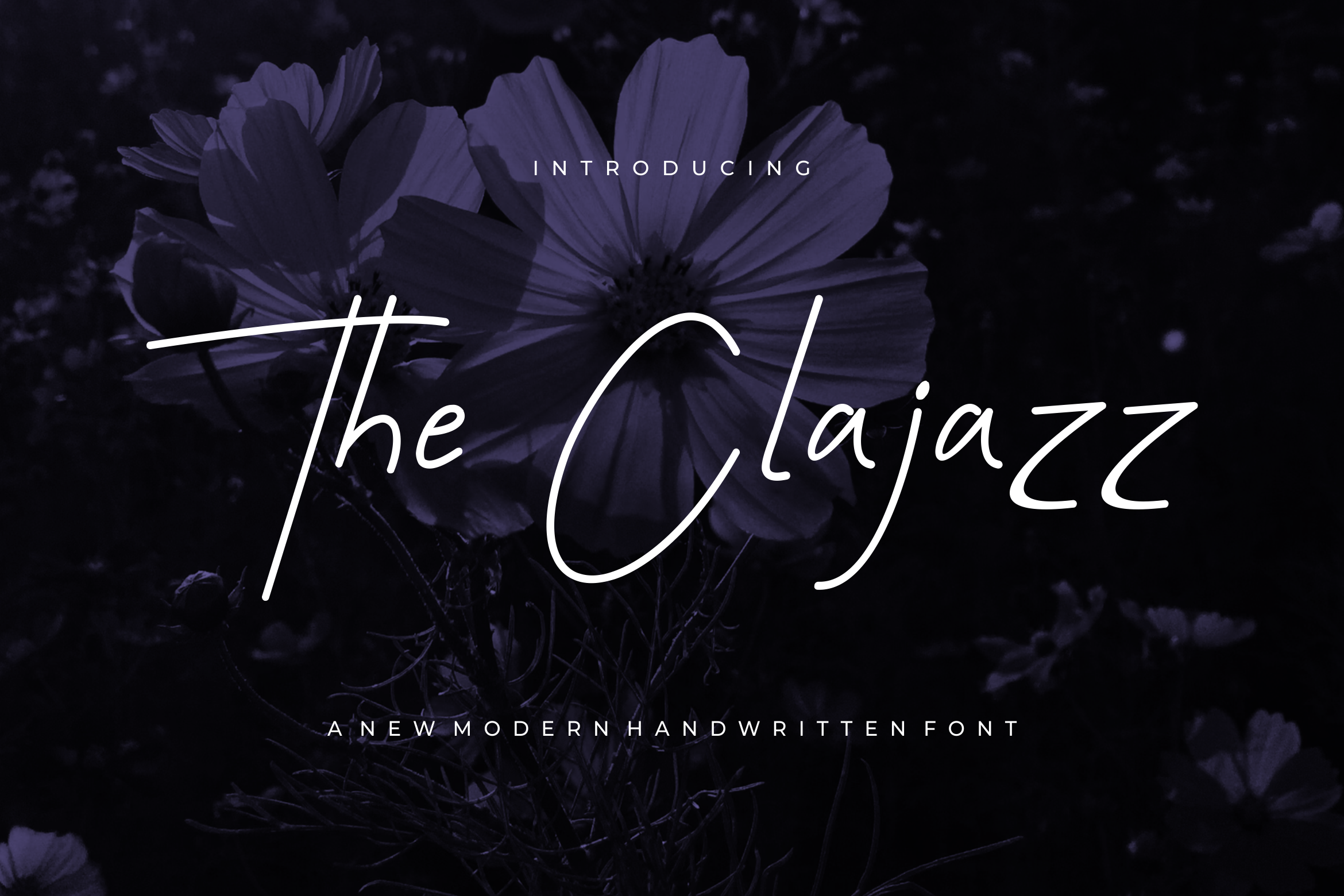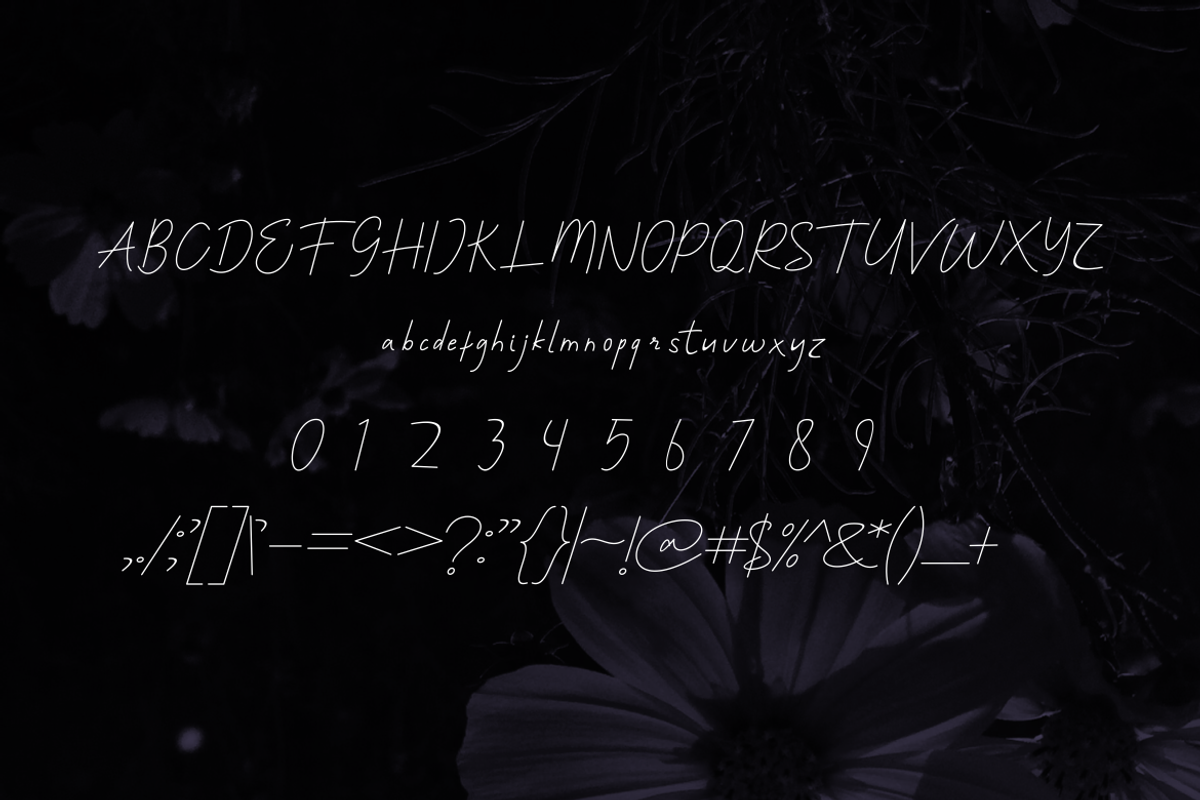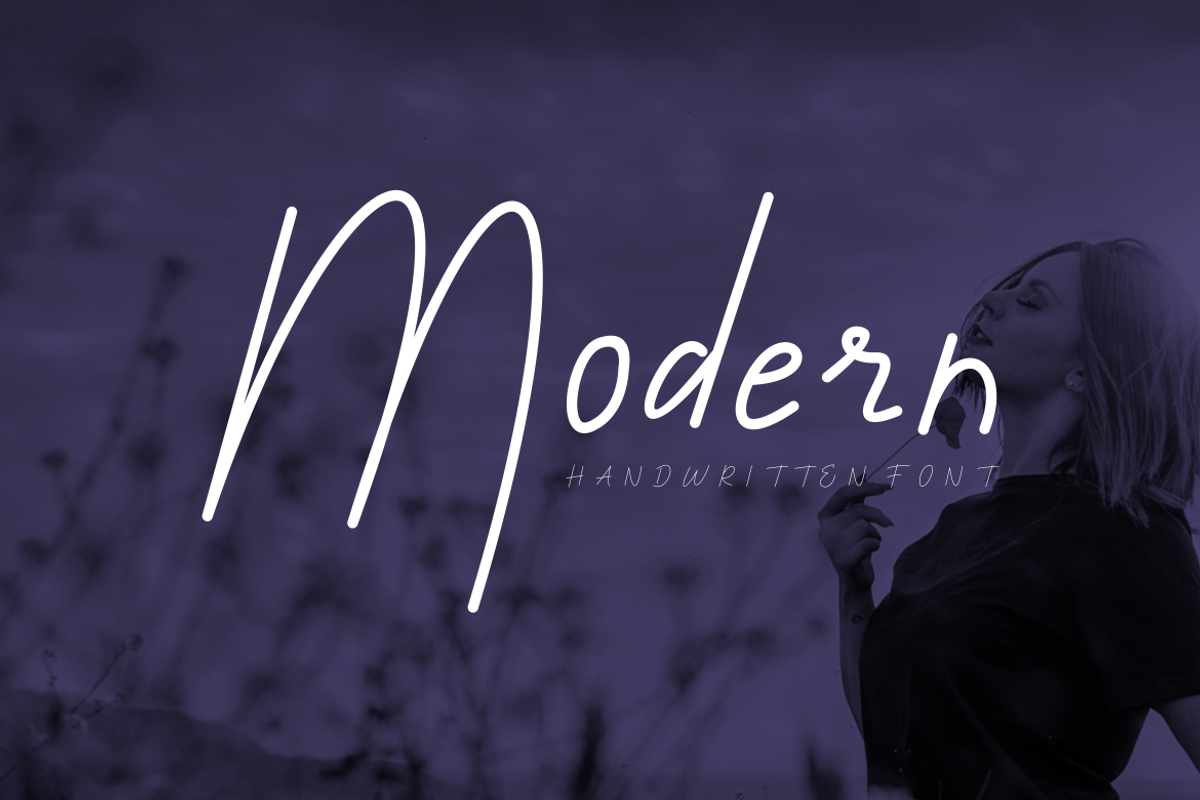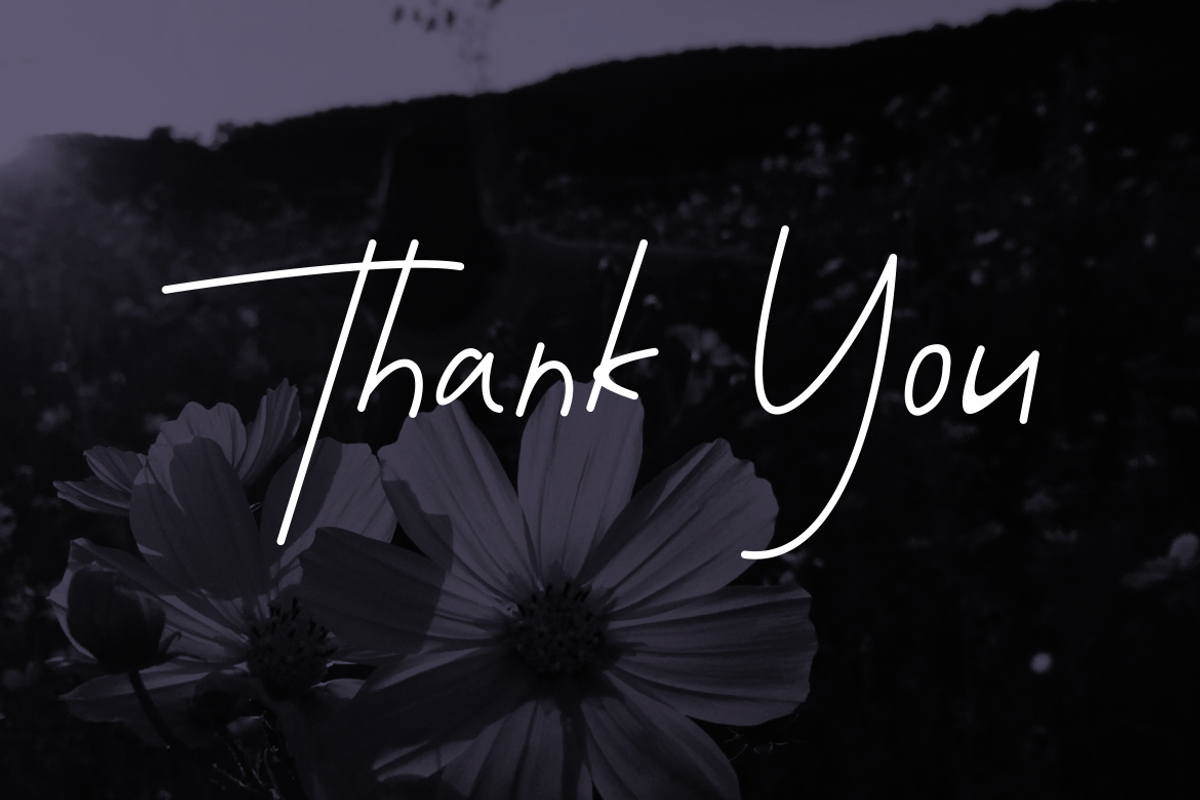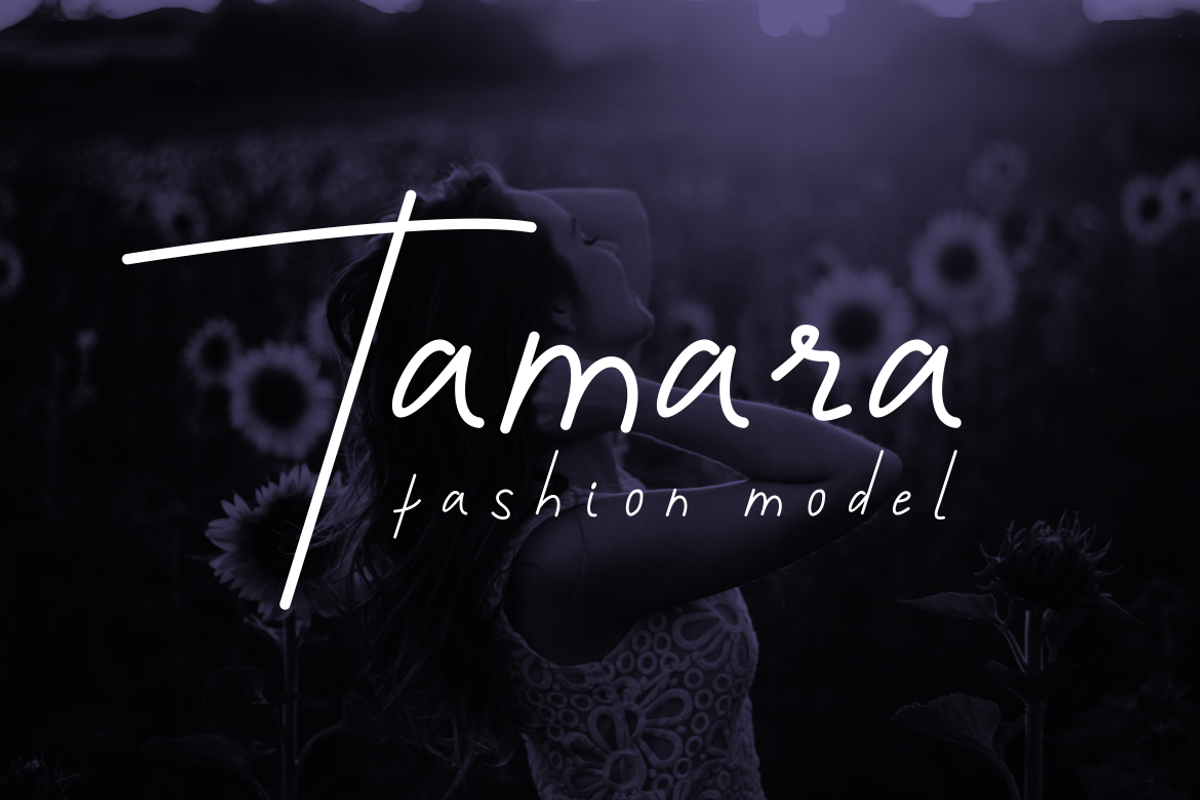
The Clajazz - Font
- Modern Font is a bold and authentic display font. The font is suitable for any branding project like logo, t-shirt printing,, and many more. outstanding in a wide range of contexts.